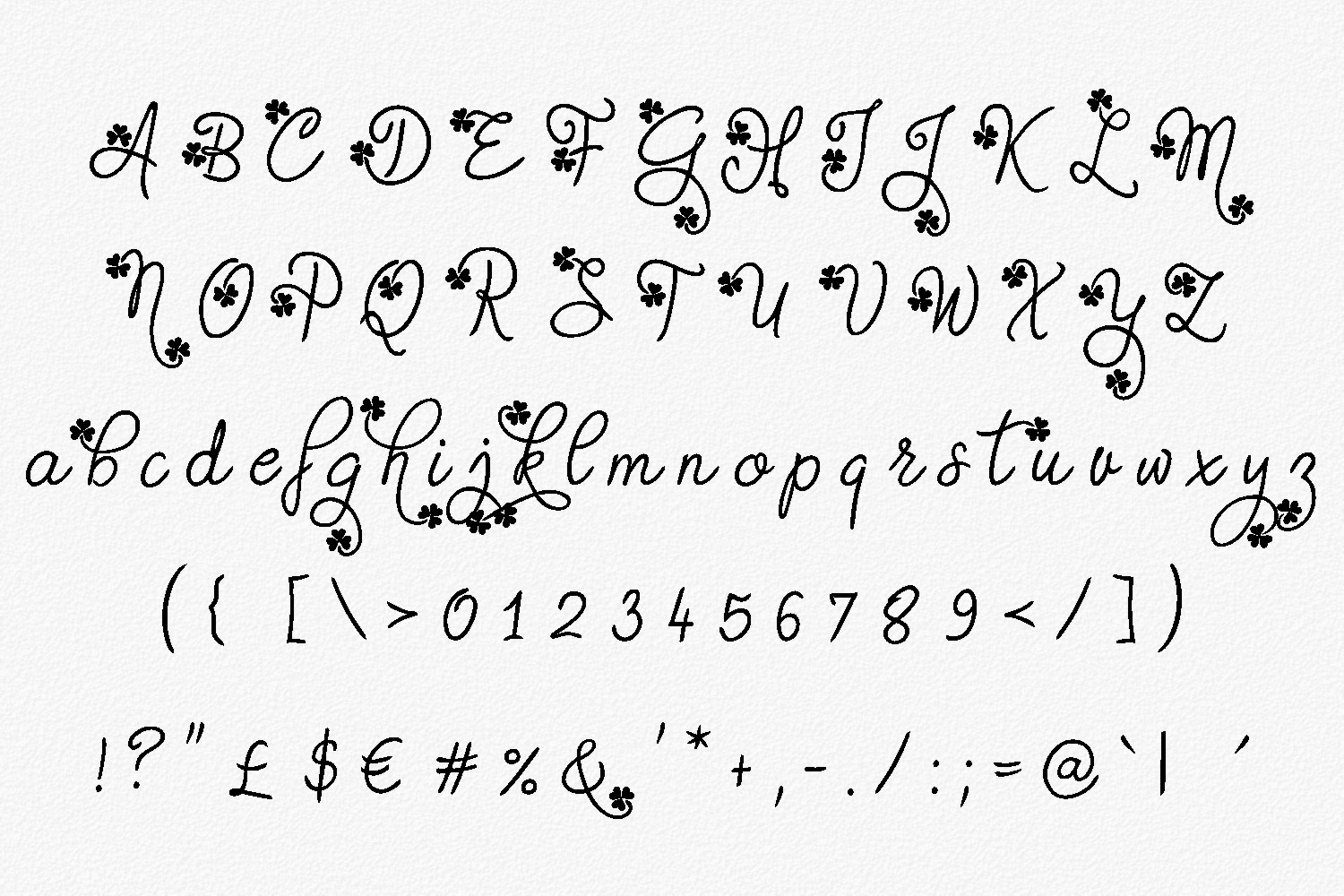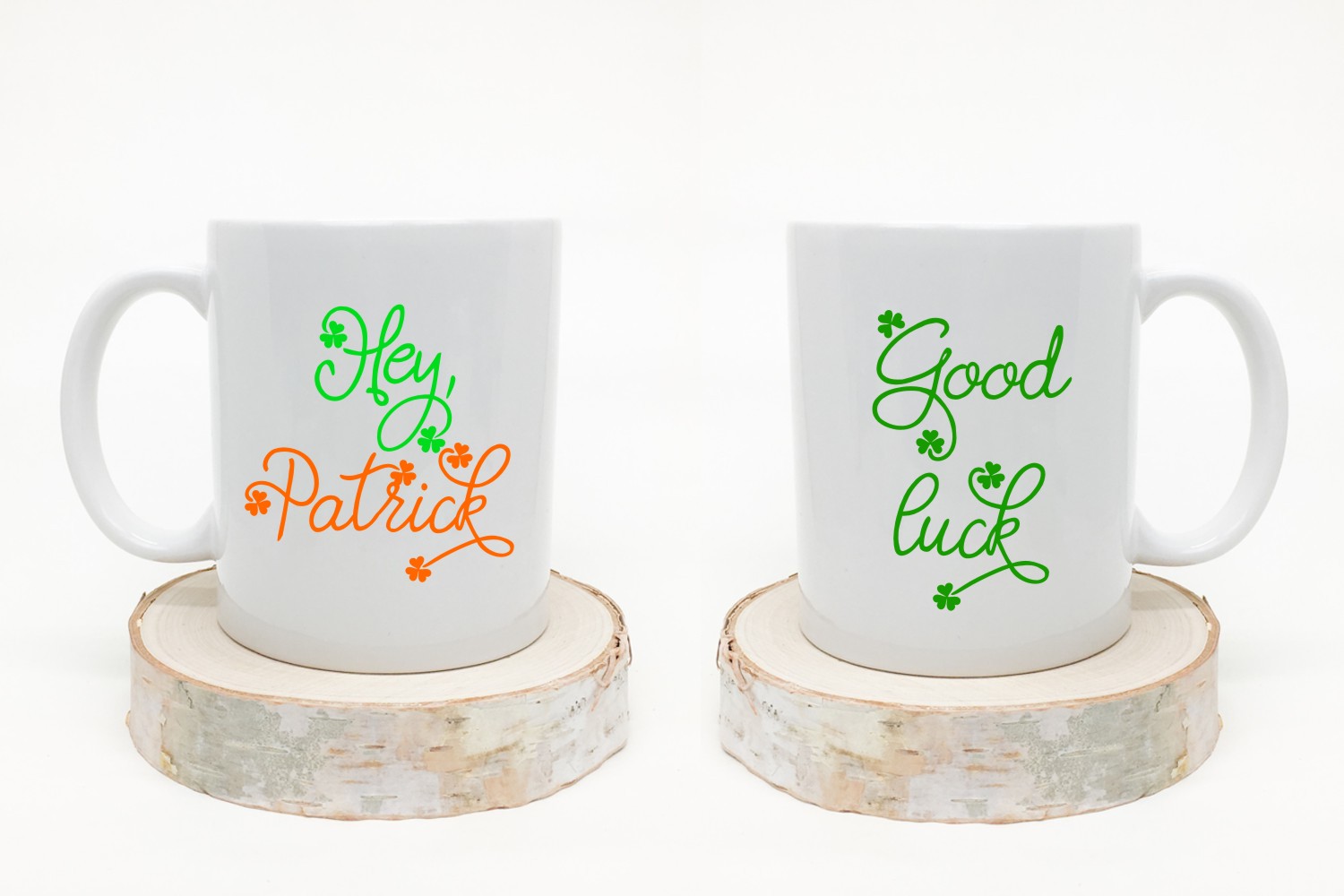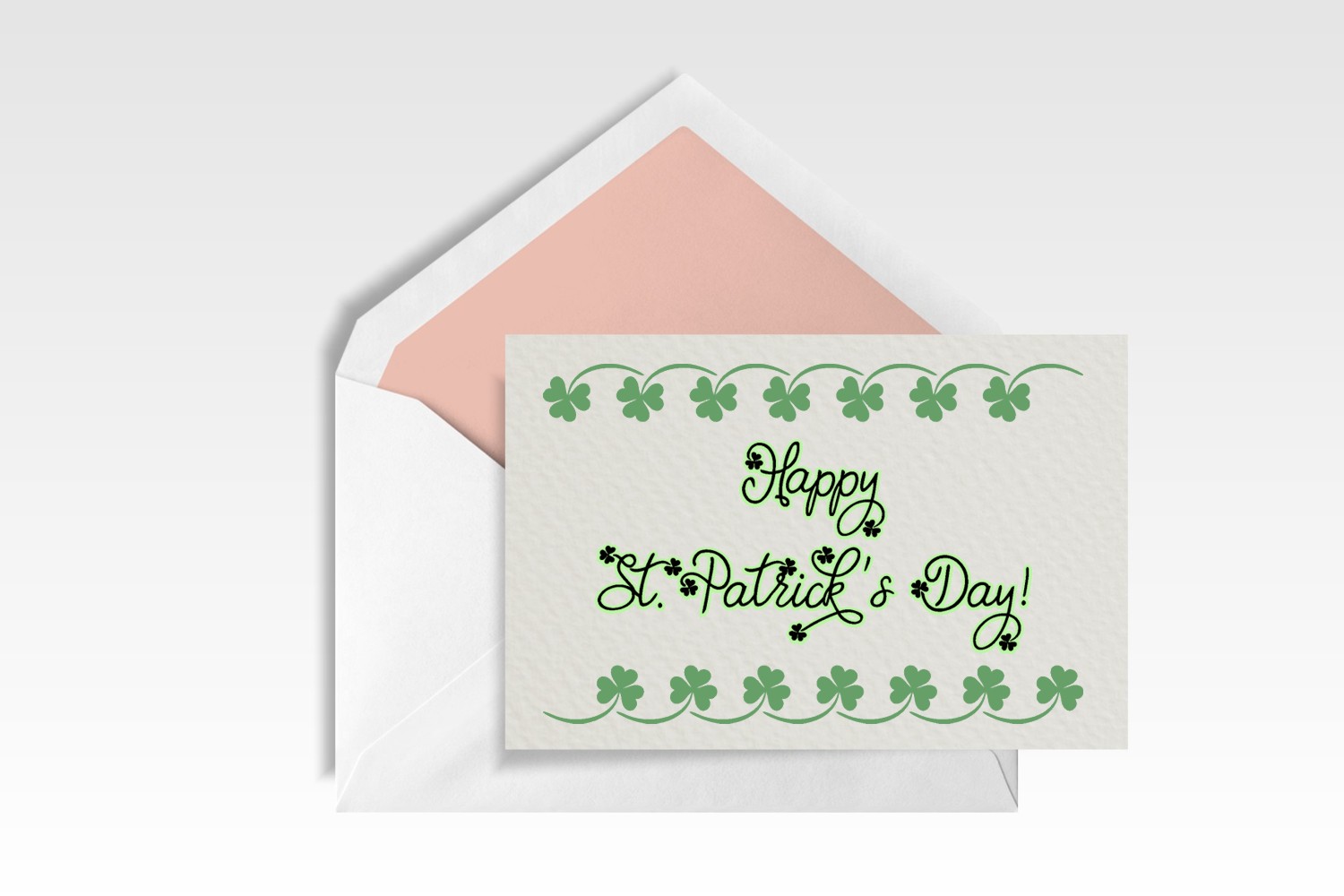
Gudlak Font
About Gudlak Font
Get ready for St Patrick’s Day with this fun handwritten font! Gudlak is embellished by clovers, and its monoline design gives it a clean and modern look.